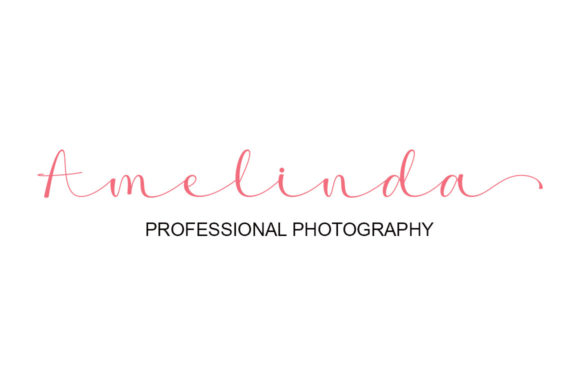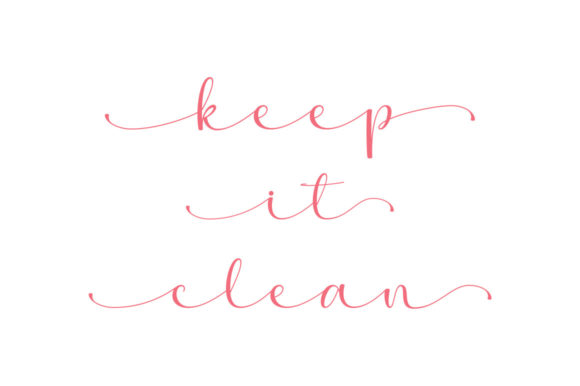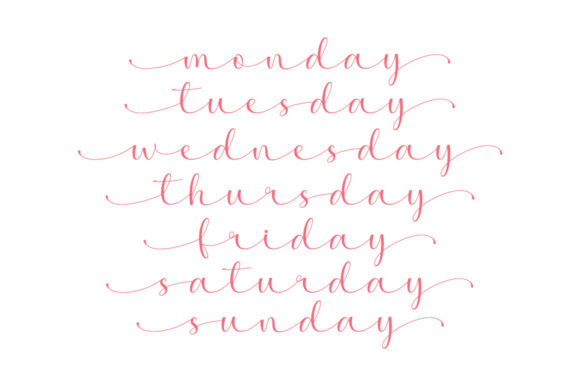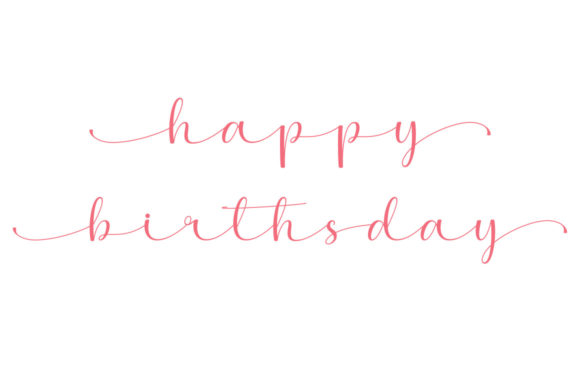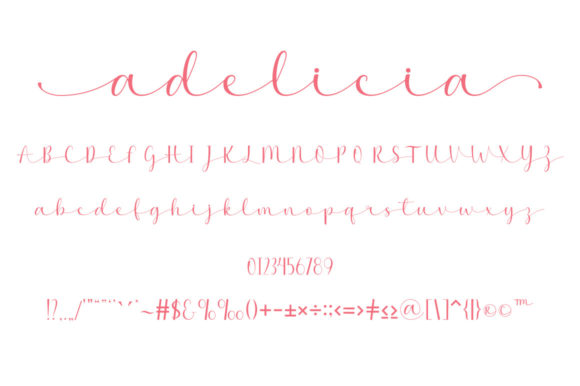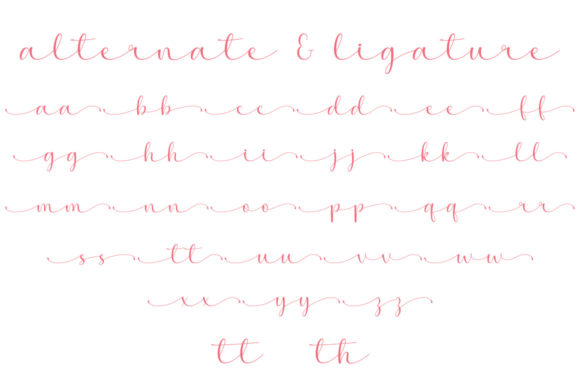
Adding a Touch of Elegance with the Adelicia Font
Have you ever been stuck on a design project, searching for the perfect font to bring your vision to life? I’m sure we’ve all been there – scrolling through font libraries, trying to find that elusive combination of style and sophistication. But what if I told you that there’s a font that can elevate your designs and leave a lasting impression?
Meet the Adelicia Font, a romantic and sweet handwritten font that will add a luxurious spark to any project you wish to create. With its unique, flowing characters that dance along the baseline, Adelicia Font is perfect for designers looking to add a touch of elegance and sophistication to their work. Its PUA encoding also makes it easy to access all the amazing glyphs and ligatures, giving you the freedom to create truly unique designs.
Adelicia Font Key Features
- Font Family: Adelicia Font is a modern script font, ideal for titles, headings, and creative projects.
- Unique Characteristics: This font features a unique, hand-drawn style with subtle imperfections, giving it a personal and artistic feel.
Review of Adelicia Font
Adelicia Font is a beautiful, elegant script font that exudes sophistication and refinement ✨. Its fluid, cursive strokes evoke the feeling of high-end luxury, making it perfect for branding and advertising materials that aim to convey a sense of prestige and class.
- Beautiful, elegant script design ✨
- Perfect for branding and advertising materials
- High-end luxury feel
- Can be used for titles and headings
However, there are a few limitations to consider ⚠️:
- The font may be too ornate for certain designs, making it difficult to read at smaller sizes
- The font’s elegance may come across as overly pretentious or snobbish in certain contexts
- The font lacks a bold or italic weight, which may limit its versatility
Overall, I would recommend Adelicia Font to designers who are looking to add a touch of luxury and sophistication to their projects. However, it’s essential to use it judiciously, considering the context and the intended audience to avoid coming across as too pretentious or overly ornate.
Getting the Most Out of Adelicia Font
For the best results, use Adelicia Font in conjunction with other elegant and refined elements, such as cursive scripts and minimalist designs.
Experiment with different font sizes and styles to create a visually appealing effect.
Adelicia Font is ideal for:
Formal event invitations
High-end branding and marketing materials
Book covers and literary works
Alternatives to Adelicia Font
Raleway
Raleway is a modern sans-serif font that offers a clean and elegant look. It’s ideal for use in digital products, websites, and applications where a clear and readable font is necessary. Raleway is more geometric and has a larger x-height compared to Adelicia Font, making it more suitable for body text.
Merriweather is a classic serif font that exudes a sense of sophistication and elegance. It’s perfect for use in print materials, such as books, magazines, and newspapers, where a traditional and timeless look is desired. Merriweather is more formal and has a larger x-height compared to Adelicia Font, making it more suitable for headings and titles.
Lato is a modern sans-serif font that offers a clean and elegant look. It’s ideal for use in digital products, websites, and applications where a clear and readable font is necessary. Lato is more rounded and has a smaller x-height compared to Adelicia Font, making it more suitable for use in titles and headings.
Playfair Display is an elegant and luxurious serif font that’s perfect for use in high-end branding, packaging, and print materials. It’s more ornate and has a larger x-height compared to Adelicia Font, making it more suitable for use in titles and headings where a sense of grandeur is desired.